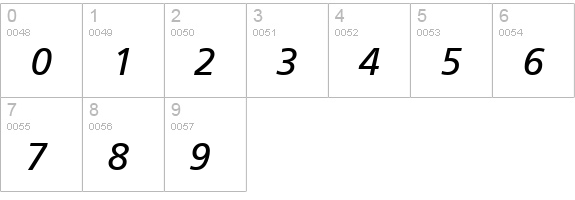
FrontPage-Italic is a distinctive, italic variant in the FrontPage typeface family \xE2\x80\x94 well suited to design and typography projects.
FrontPage-Italic is a versatile and stylish font that exudes elegance and sophistication. Its sleek and slanted design adds a touch of modern flair to any project, making it perfect for a wide range of applications. Whether you're designing a website, creating marketing materials, or crafting a stylish logo, FrontPage-Italic is sure to make a lasting impression. The best part? FrontPage-Italic is completely free to download at FontsMarket.com, making it accessible to designers of all levels. Don't miss out on the opportunity to enhance your designs with this beautiful and professional font. Download FrontPage-Italic today and take your projects to the next level.